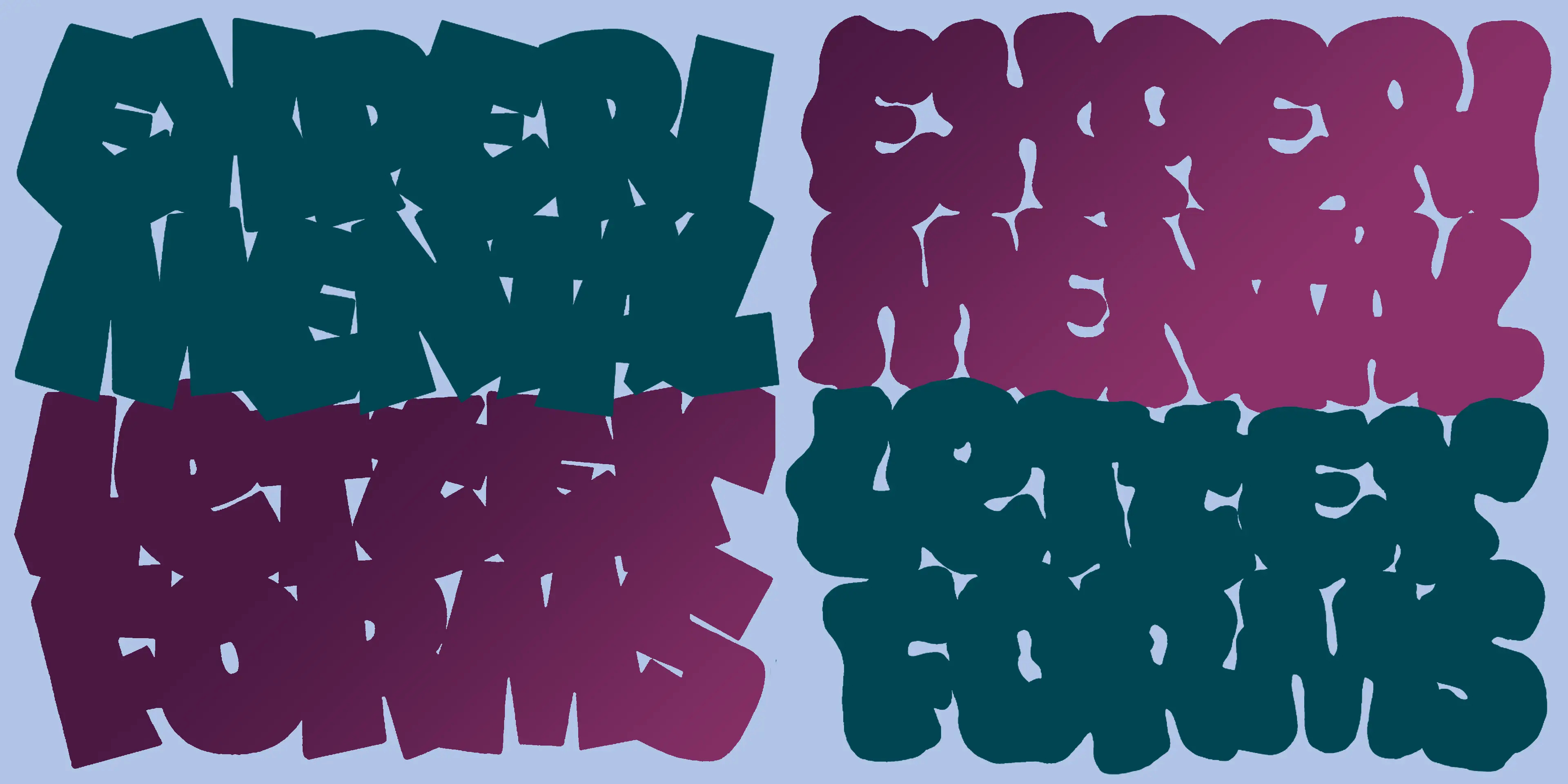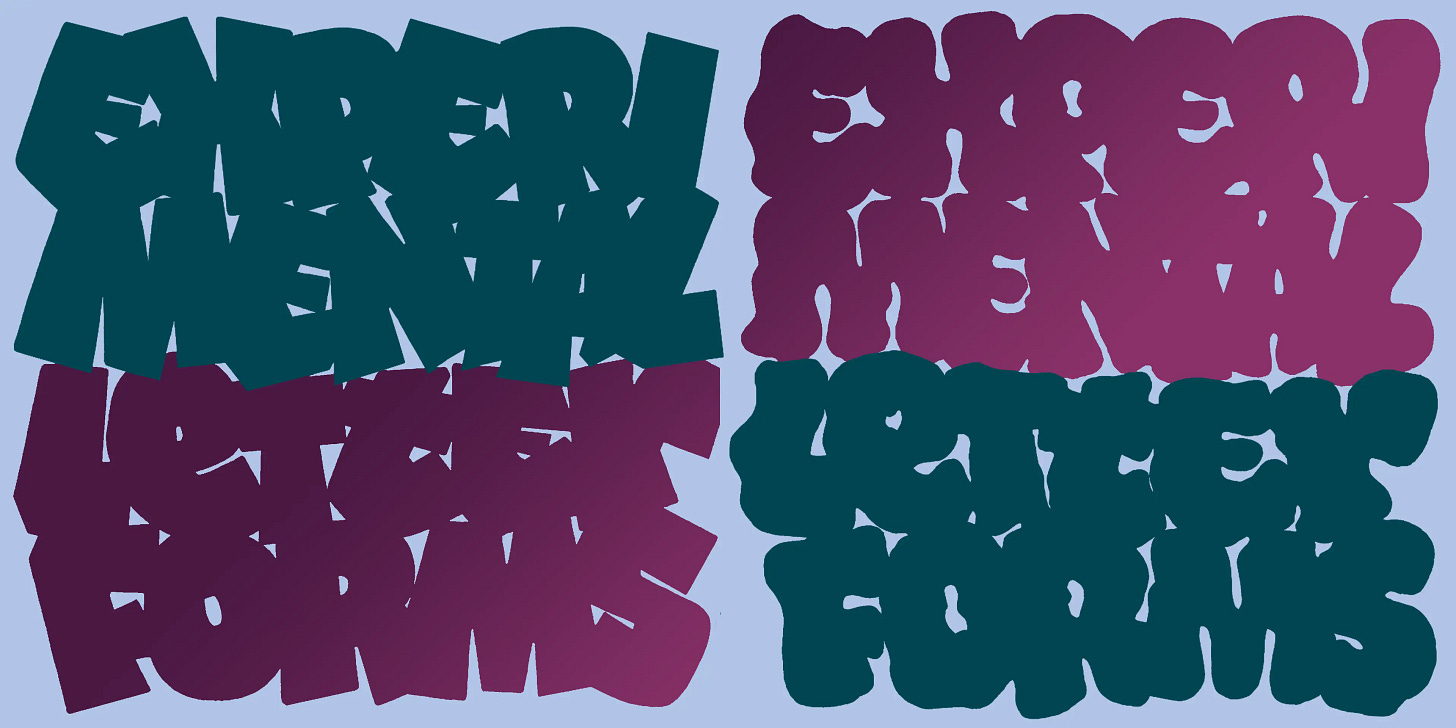
Experimental Letterforms
Go beyond the traditional type and design canon in this five-week workshop led by Kel Troughton.
Experimental Letterforms: Lessons from Graffiti Writing, Sign Painting, and Type with Kel Troughton
Take your lettering and type design to the next level by exploring sources of inspiration beyond the traditional type and design canon. This workshop invites lettering artists and type designers to dive into diverse lettering disciplines and translate their principles into modern, expressive letterforms.
Each week, we’ll study a different lettering approach through lectures and hands-on drawing exercises, covering showcard writing, sign painting, photo typesetting, graffiti, calligraphy, and traditional type design. Students will start sketches in class and refine them as homework, blending personal style with lessons drawn from each discipline to create innovative work that spans tradition and contemporary design.